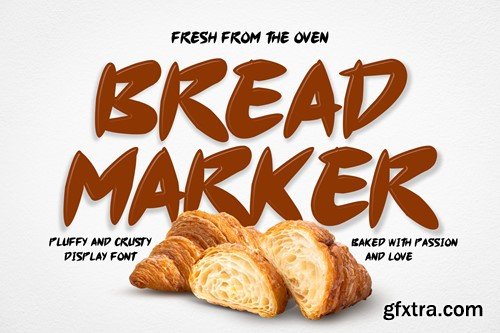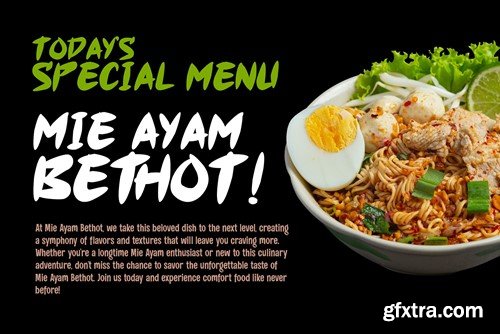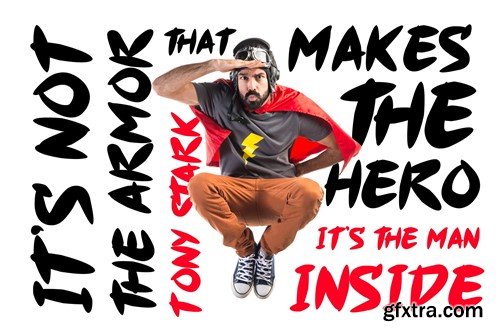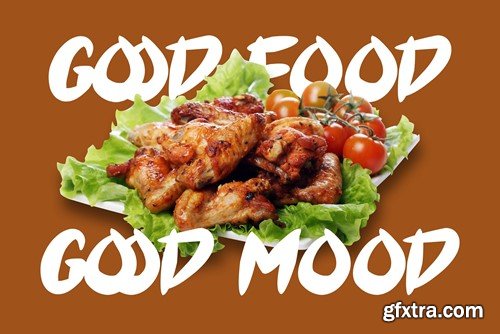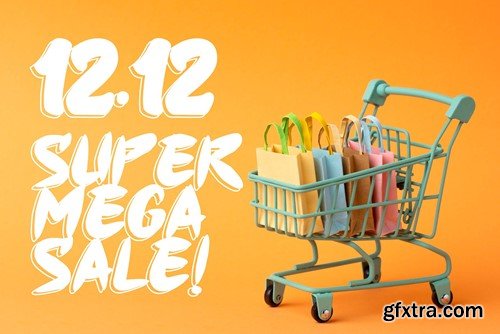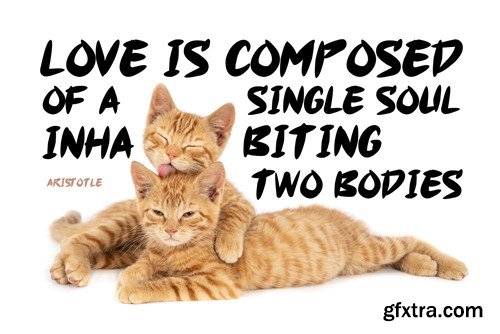
面包刻度 – 美食展示字体 QJZYUNX
Bread Marker - Playful Brush Marker Font is a vibrant and spirited typeface that brings a sense of playfulness and creativity to your designs. With its energetic and brush-like lettering, this font adds a touch of whimsy and fun to various projects, making it ideal for children's books, playful posters, or any design that calls for a lighthearted and animated feel. Bread Marker - Playful Brush Marker Font infuses your text with an infectious sense of joy and imagination, making it perfect for capturing the hearts of your audience. File Included: Features: That's it! If you have any questions don't hesitate to ask! Stay Classy!